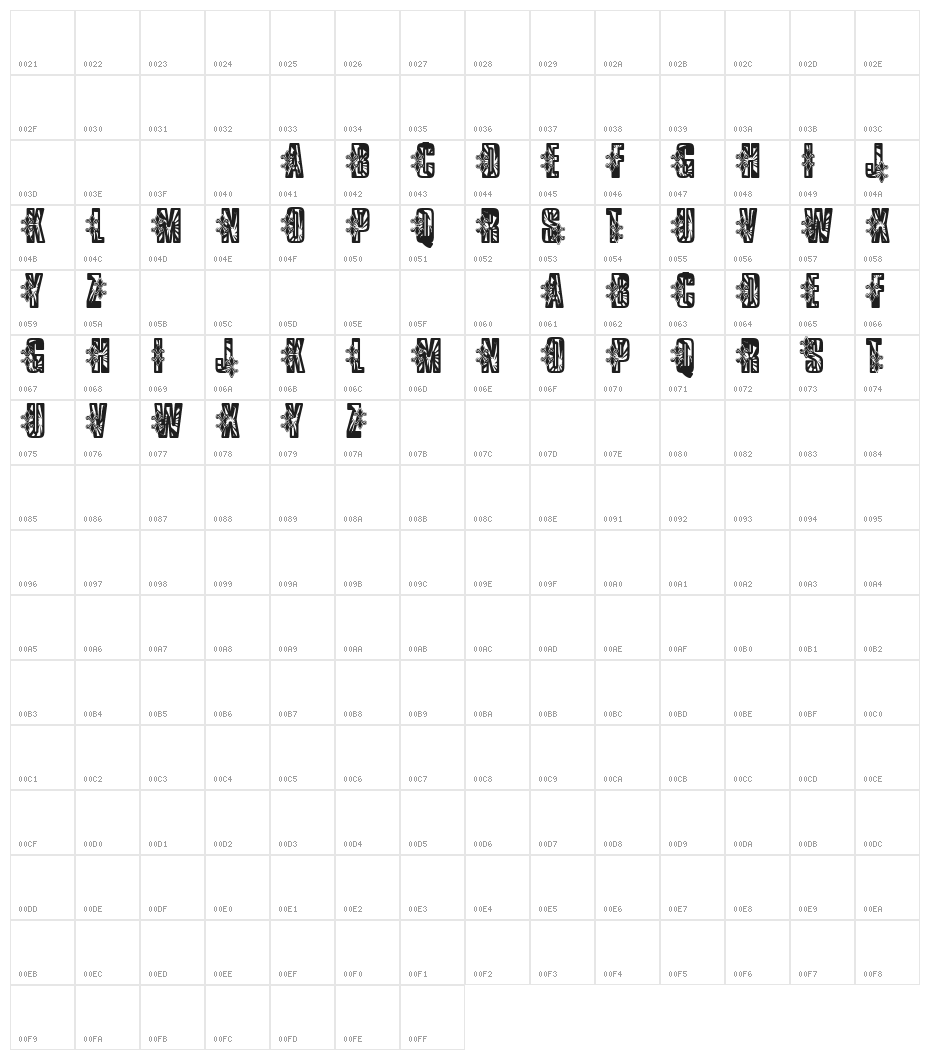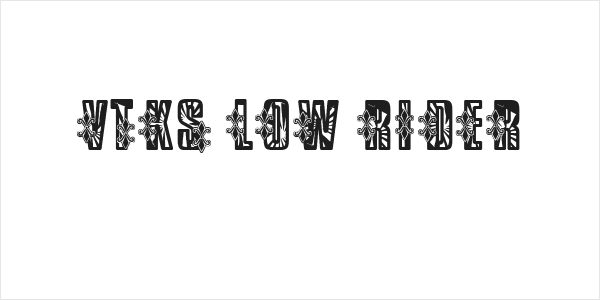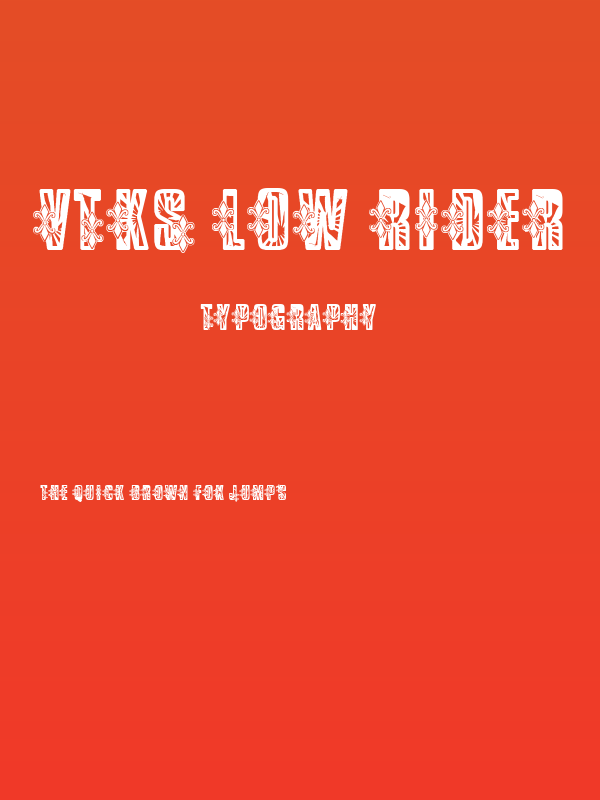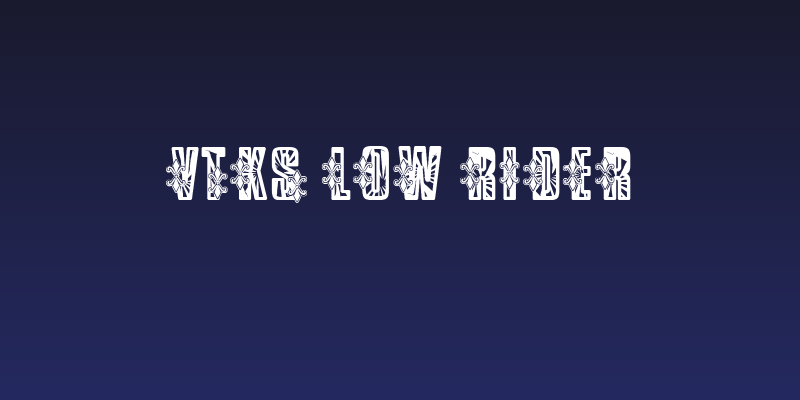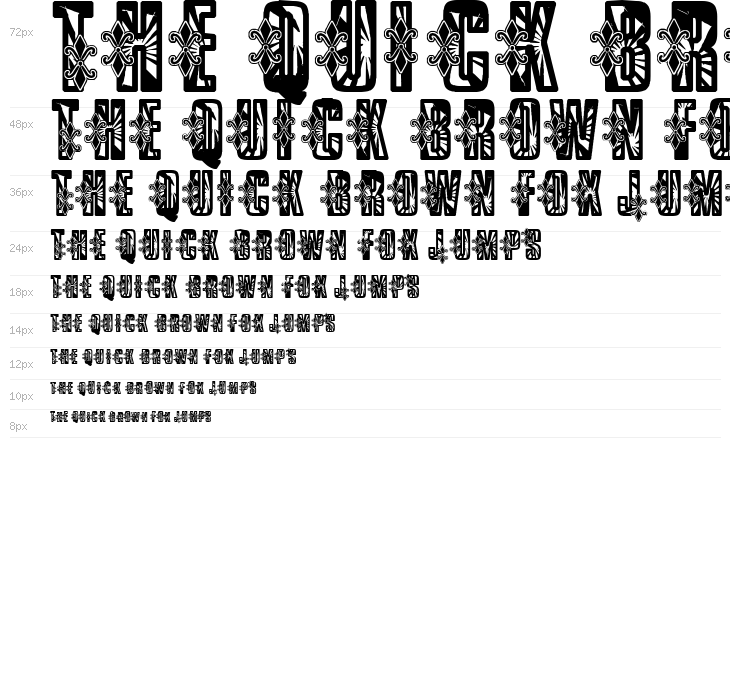
VTKS Low Rider Font
| Vorgeschlagene Projekte | Ideal for posters, album covers, event invitations, and branding that requires a bold and artistic flair. |
VTKS Low Rider